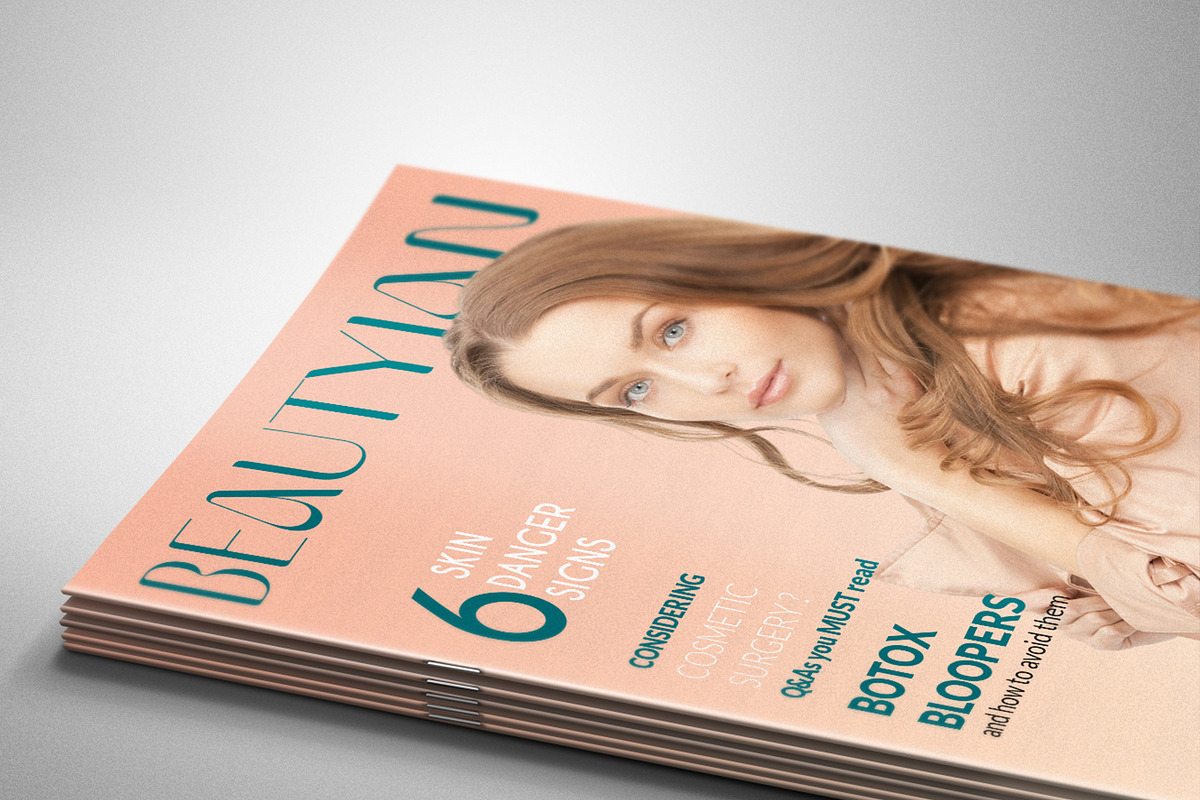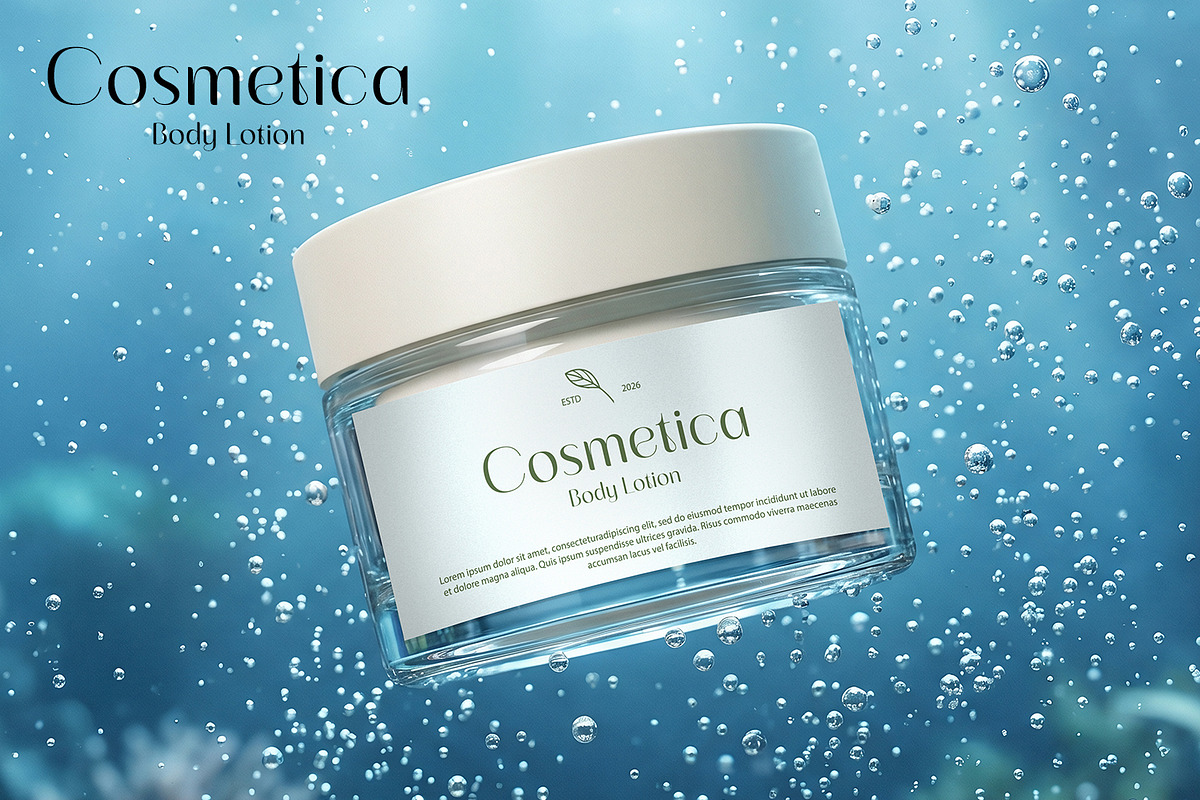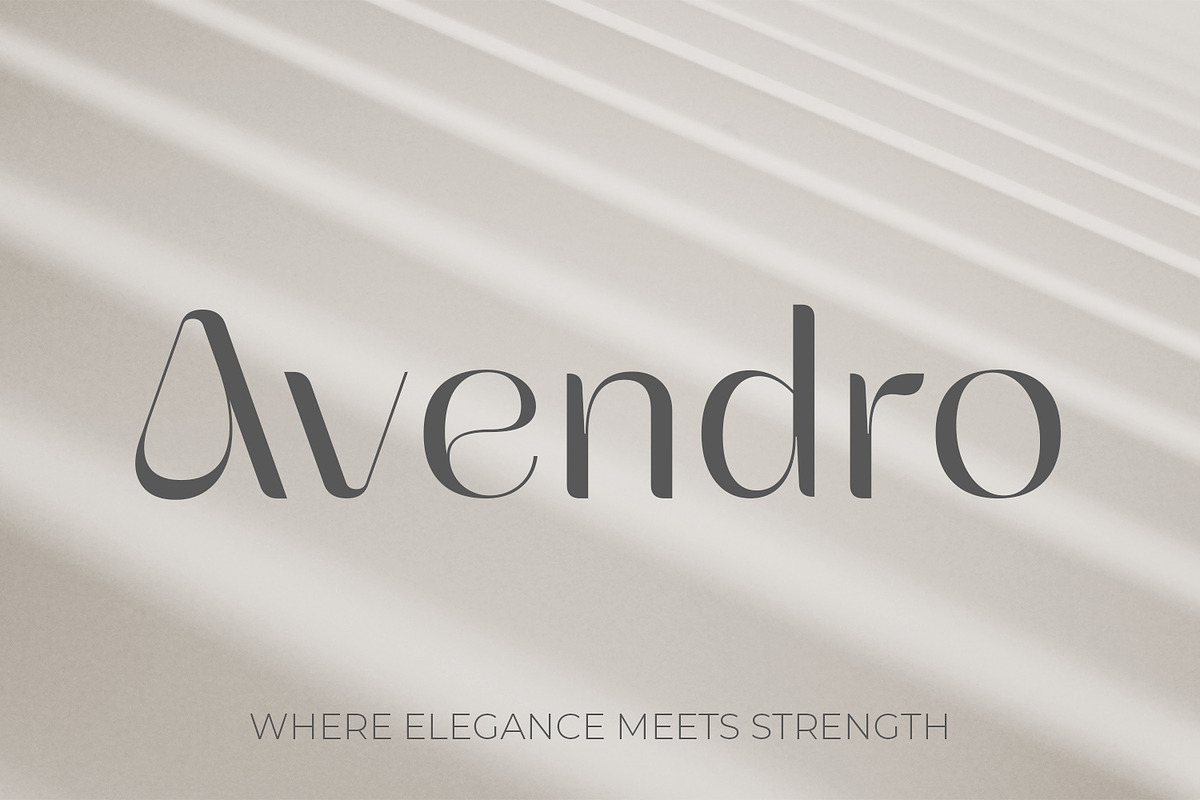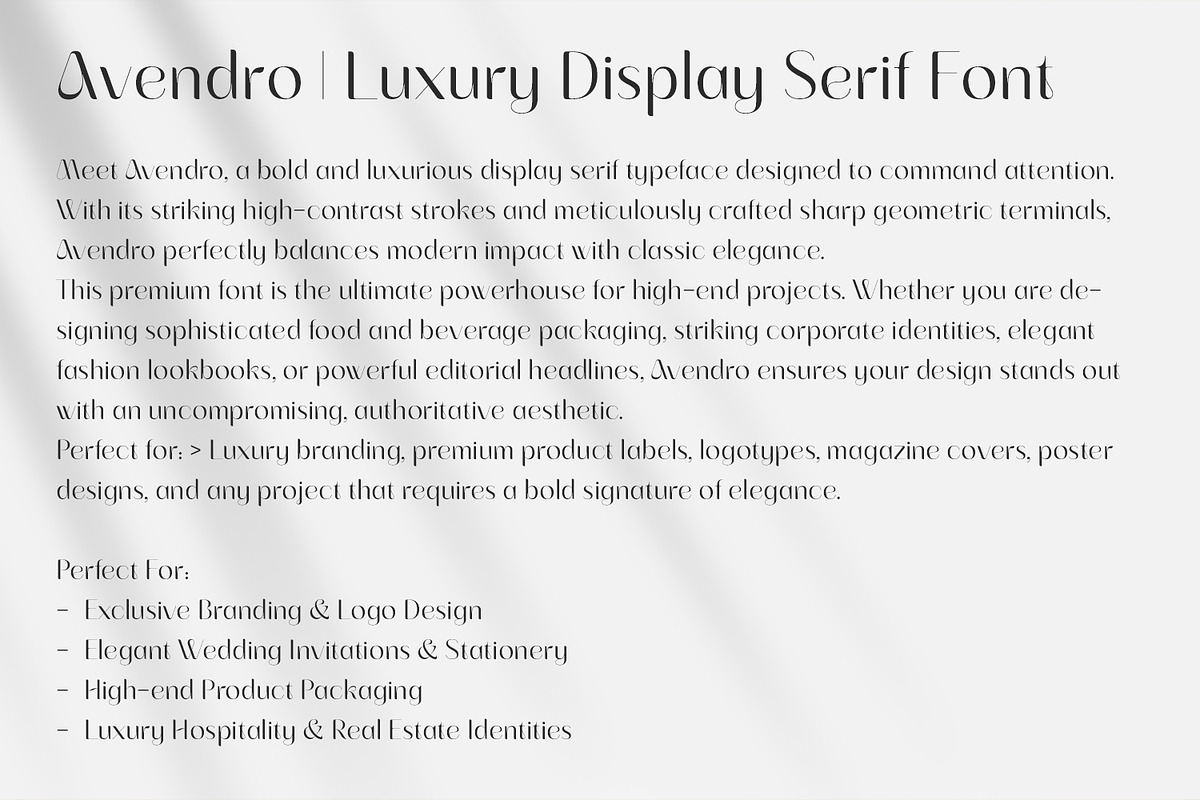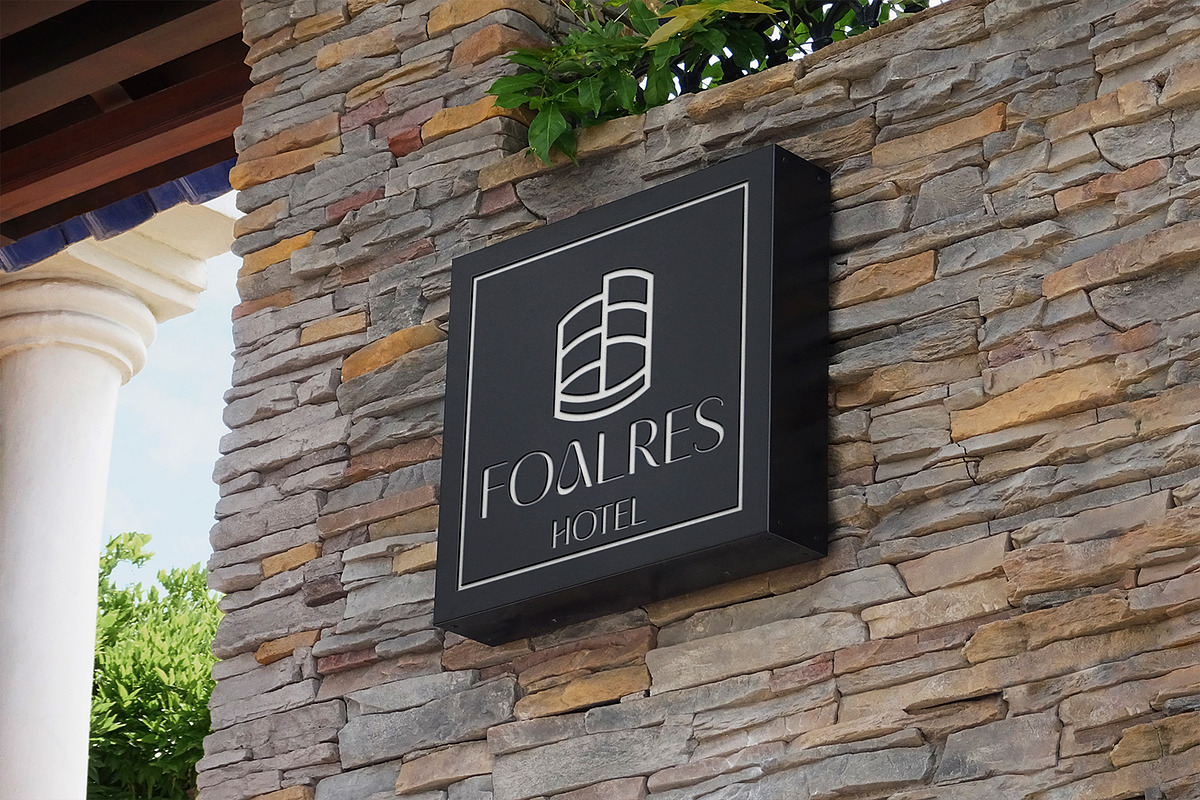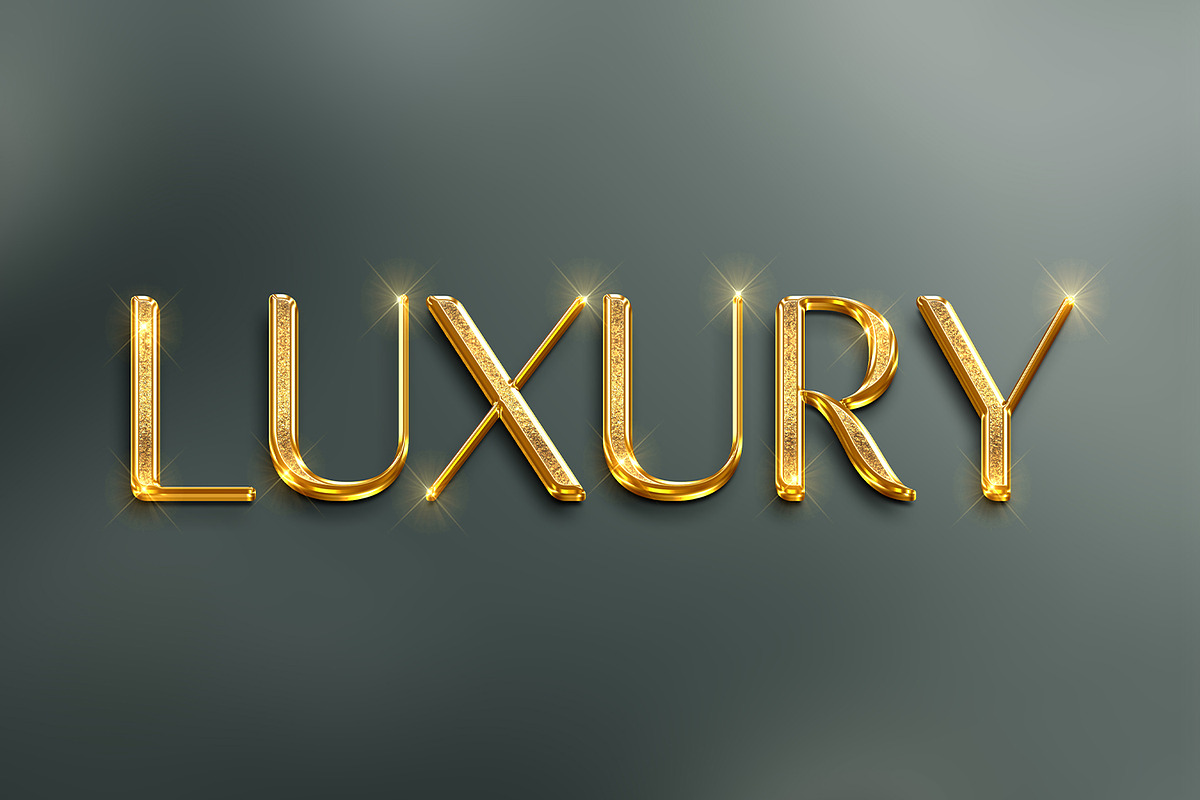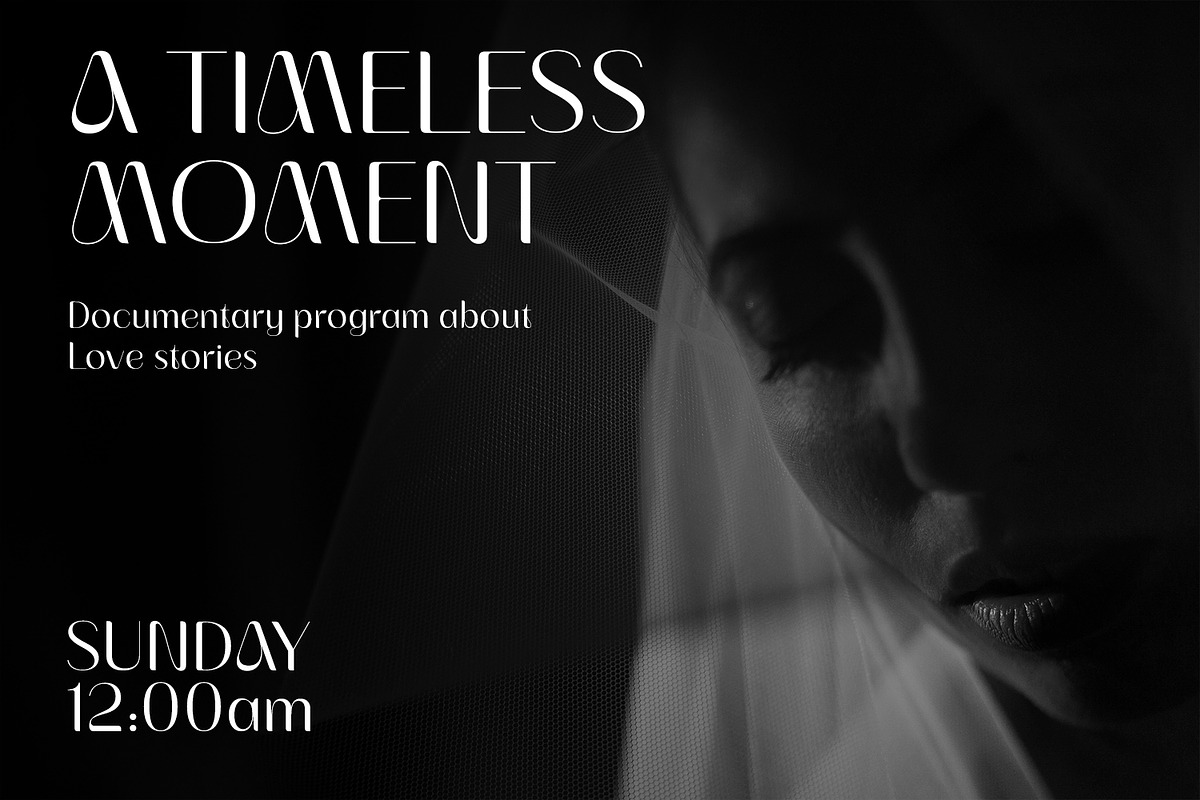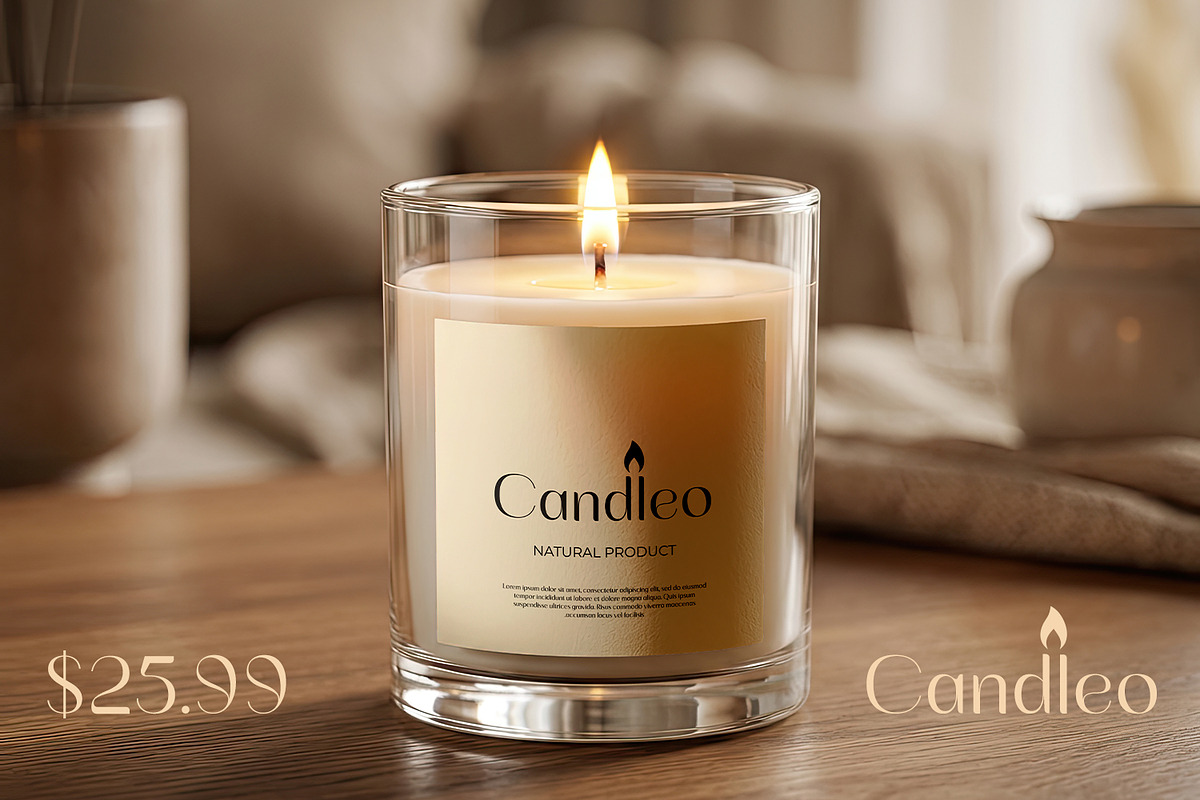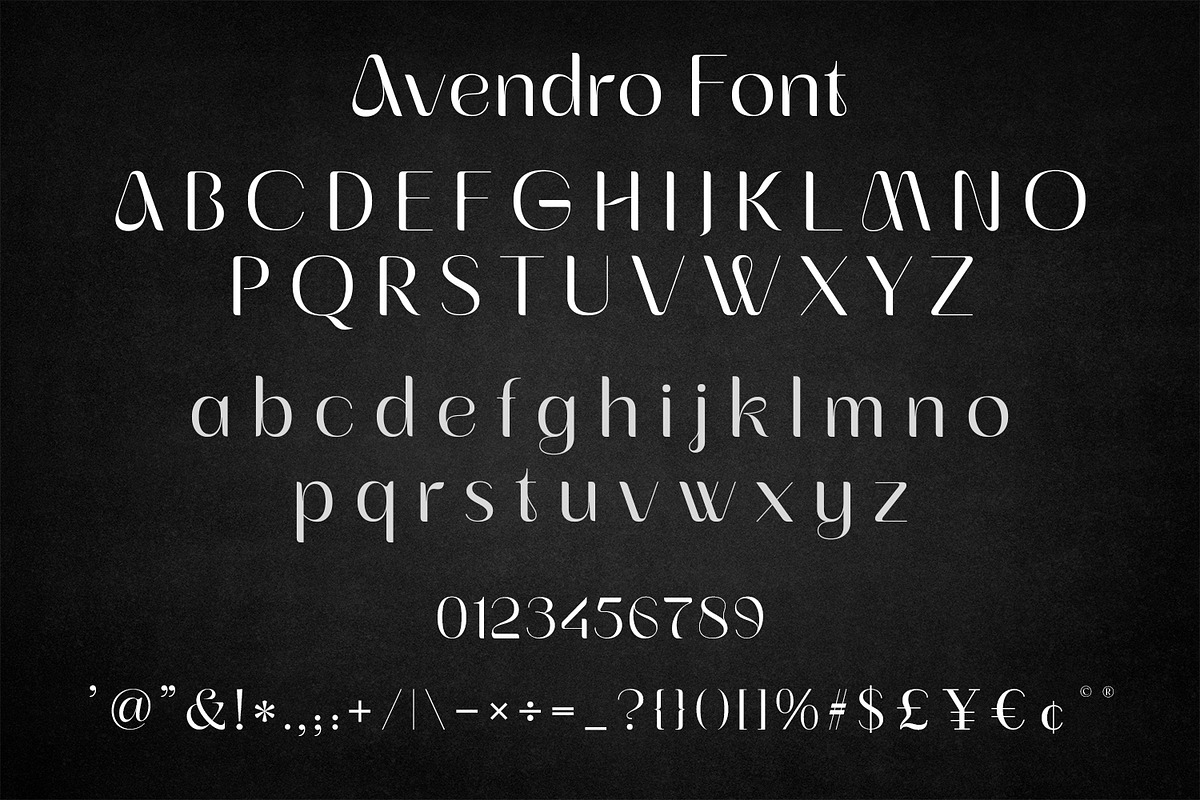
Avendro Premium Elegant Slab
Avendro Luxury Display Serif Font
Meet Avendro, a bold and luxurious display serif typeface designed to command attention. With its striking high-contrast strokes and meticulously crafted, sharp geometric terminals, Avendro perfectly balances modern impact with classic elegance.
This premium font is the ultimate powerhouse for high-end projects. Whether you are designing sophisticated food and beverage packaging, beauty cosmetics labels, striking corporate identities, elegant wedding invitations, or powerful editorial headlines, Avendro ensures your design stands out with an uncompromising, authoritative aesthetic.